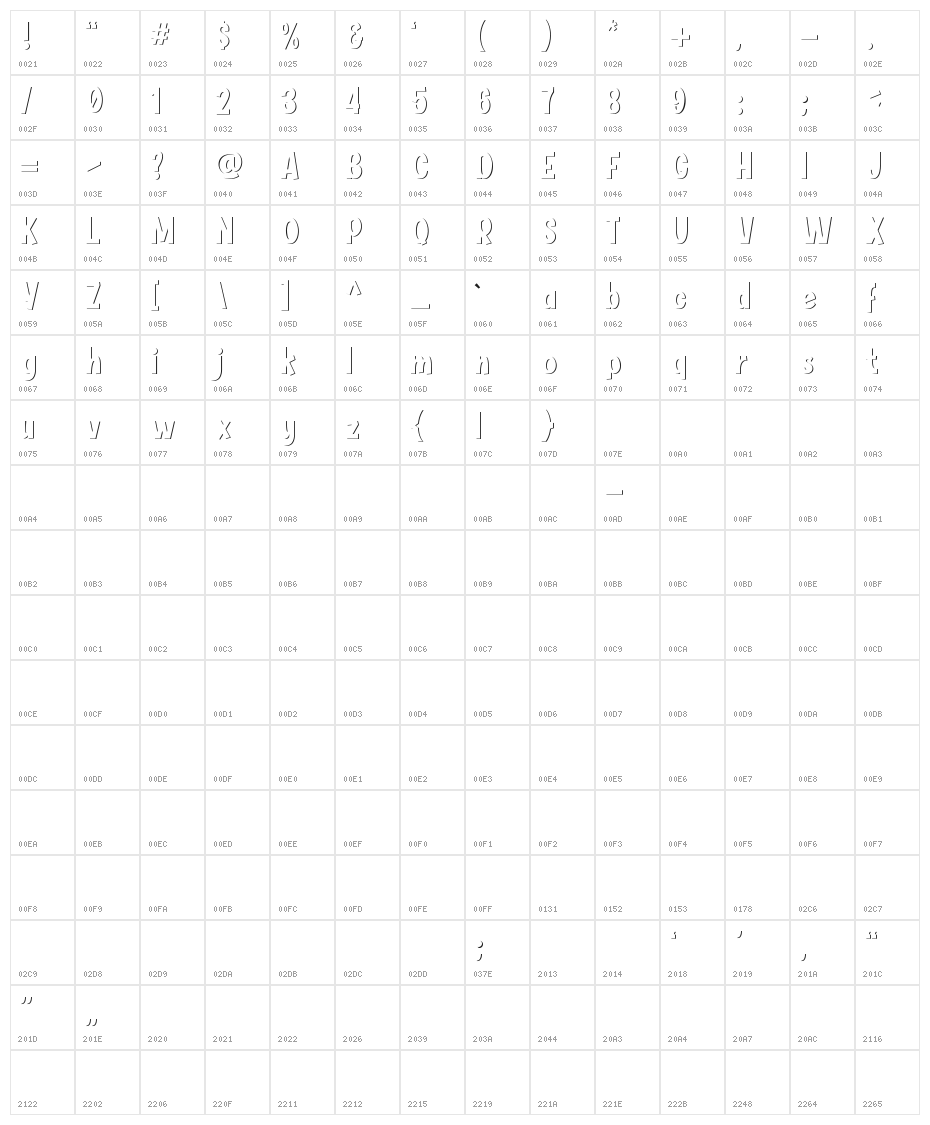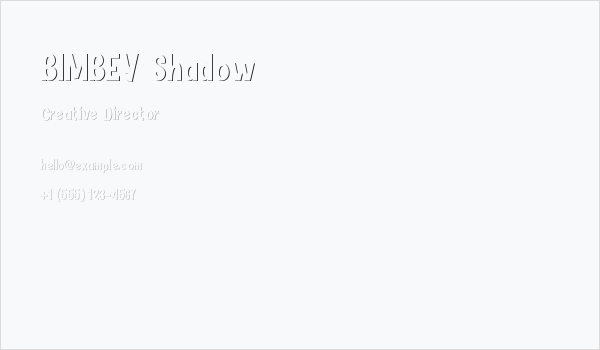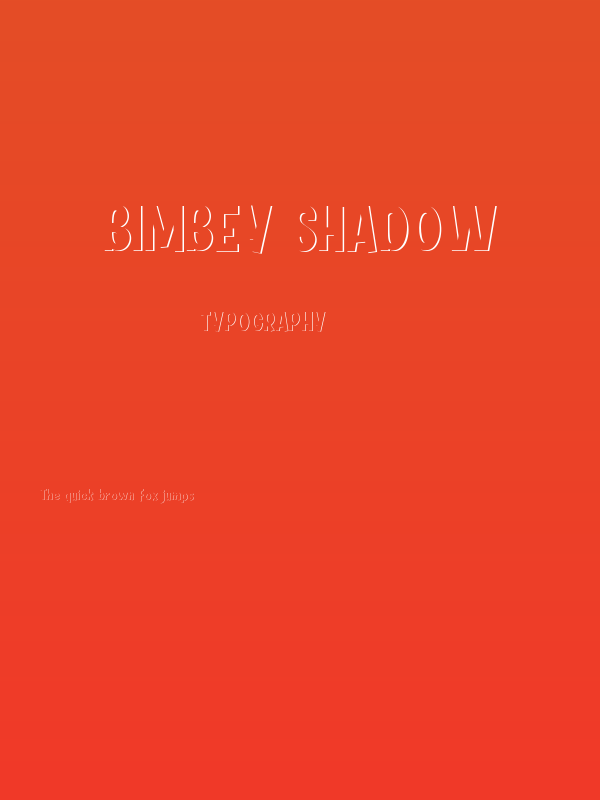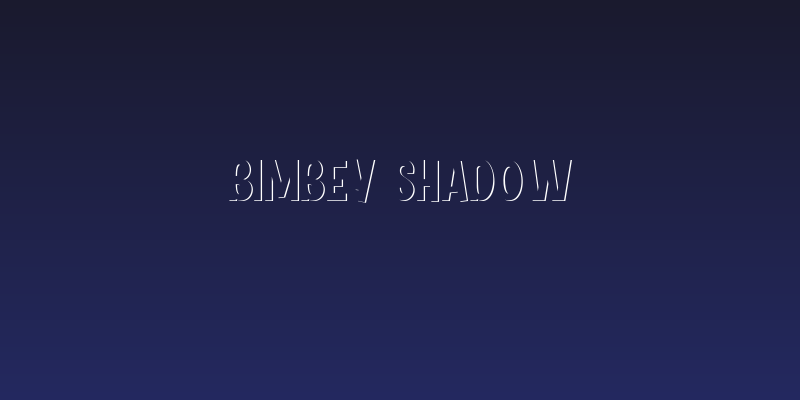
BIMBEY Shadow Font
BIMBEY Shadow Description
This font features a bold, shadowed design that gives each character a three-dimensional appearance. The uppercase letters are strong and impactful, with a distinct shadow effect that adds depth and interest. The lowercase letters maintain the same shadowed style, creating a cohesive look throughout. The numerals are clear and easy to read, with the same shadow effect enhancing their visual appeal. Special characters are included, each with the same shadowed design, making this font versatile for various uses. The overall style is modern and eye-catching, suitable for projects that require a bold statement.
| Proposed Projects | Ideal for posters, headlines, logos, and any design needing a strong visual impact. |